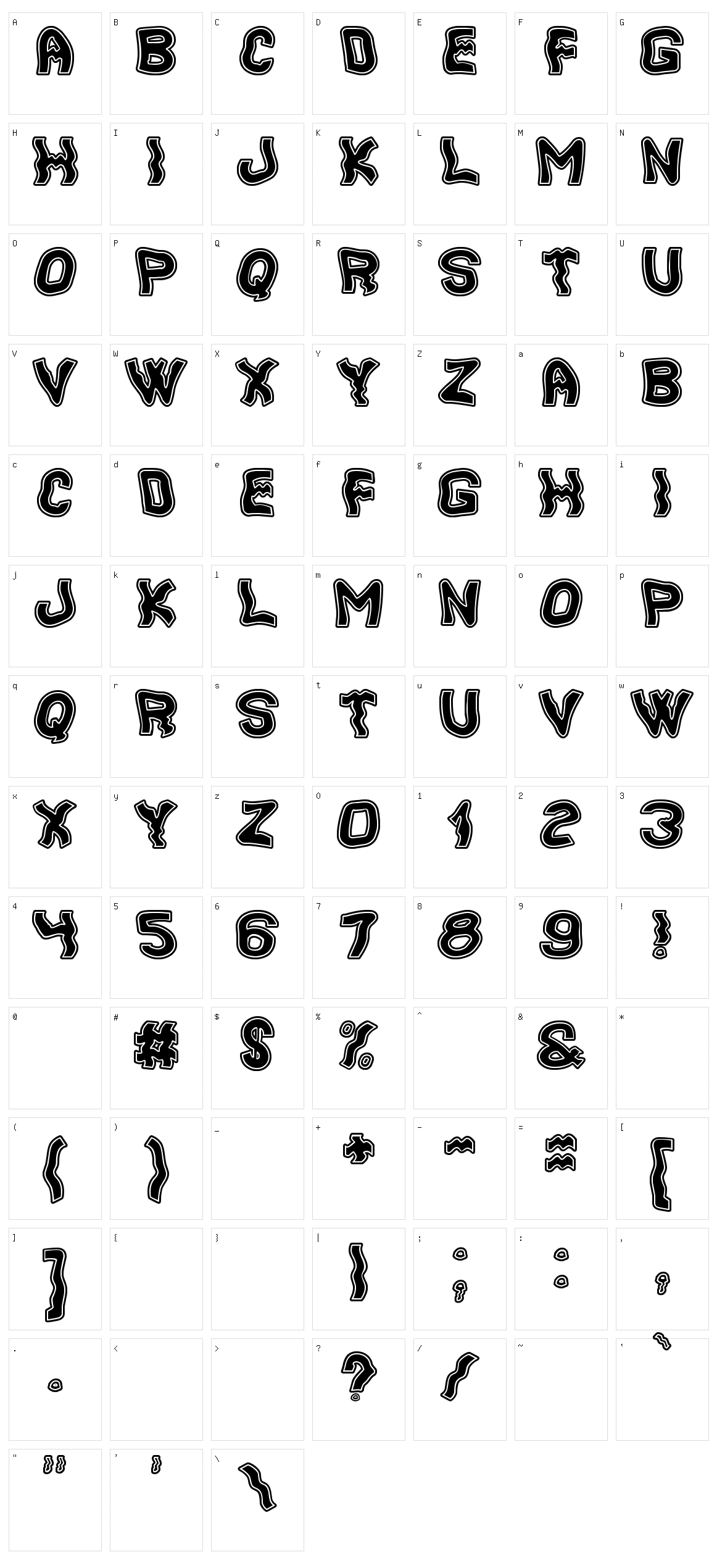
The free font Cooler South St is carefully designed by Southype, showcasing a thoughtful balance of creativity and usability and falls under the Distorted font style. When you download the ZIP file, it contains only 30.85 KB of font files, making it lightweight and quick to download. Please review the license details below to understand permitted usage and distribution rights. If license information is not available, we recommend using this font for personal projects only or contacting the author directly for commercial usage permissions.